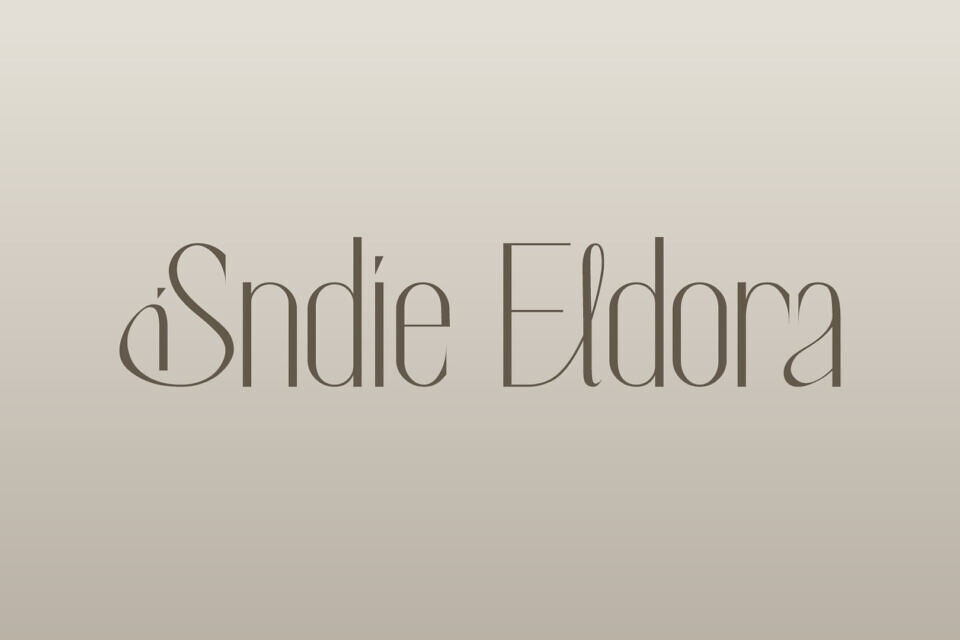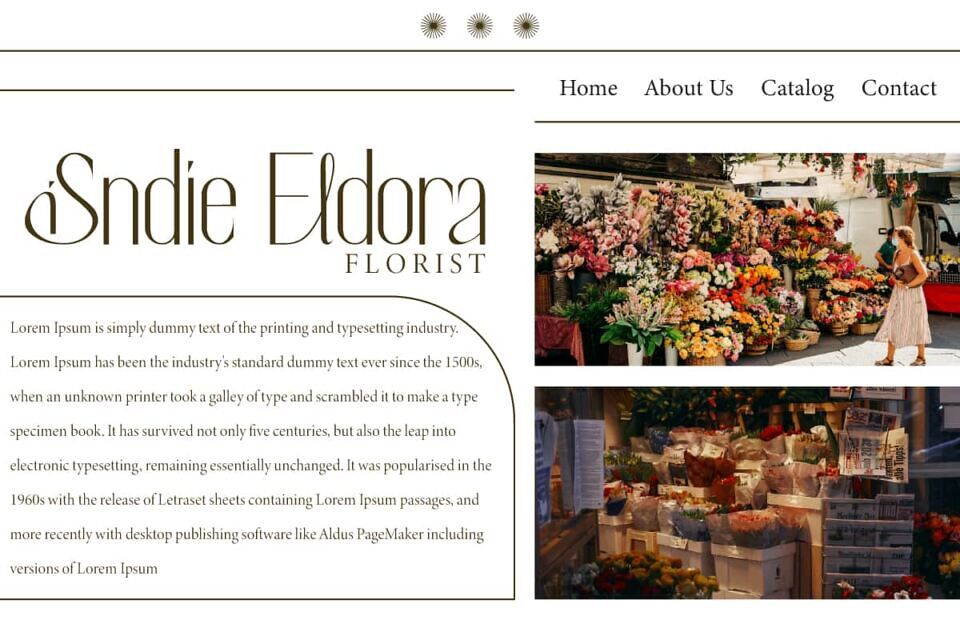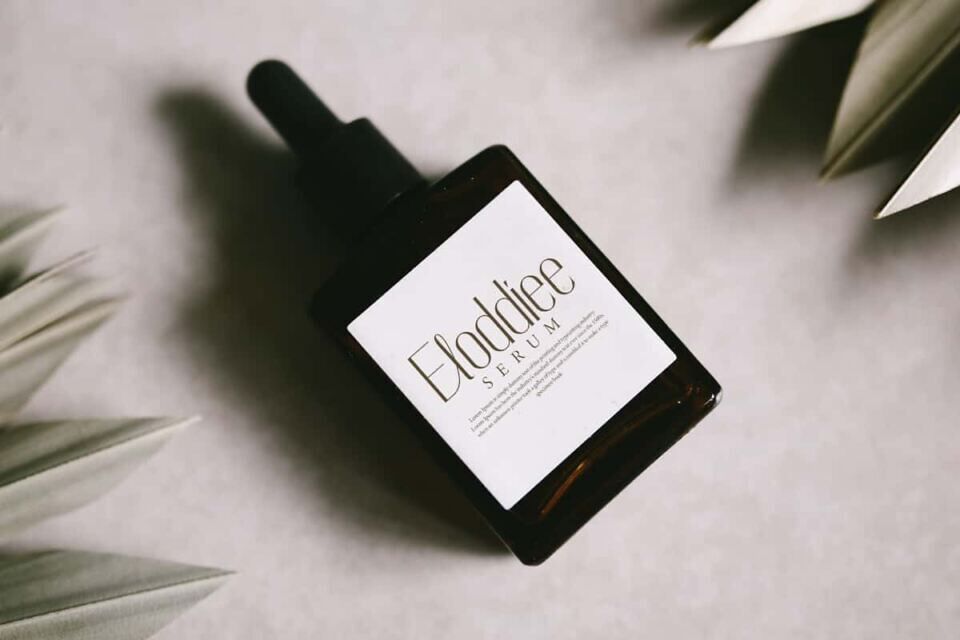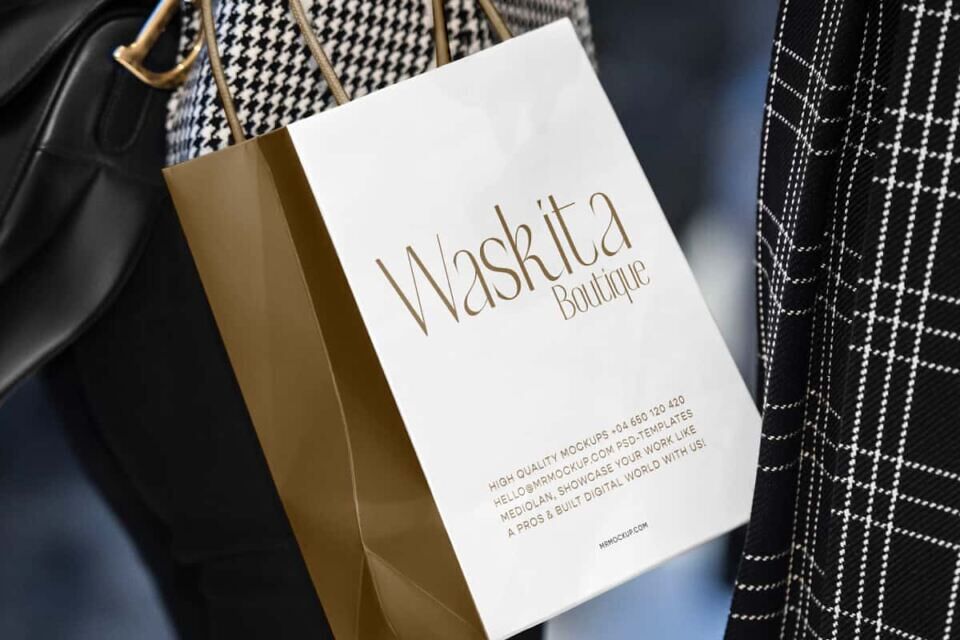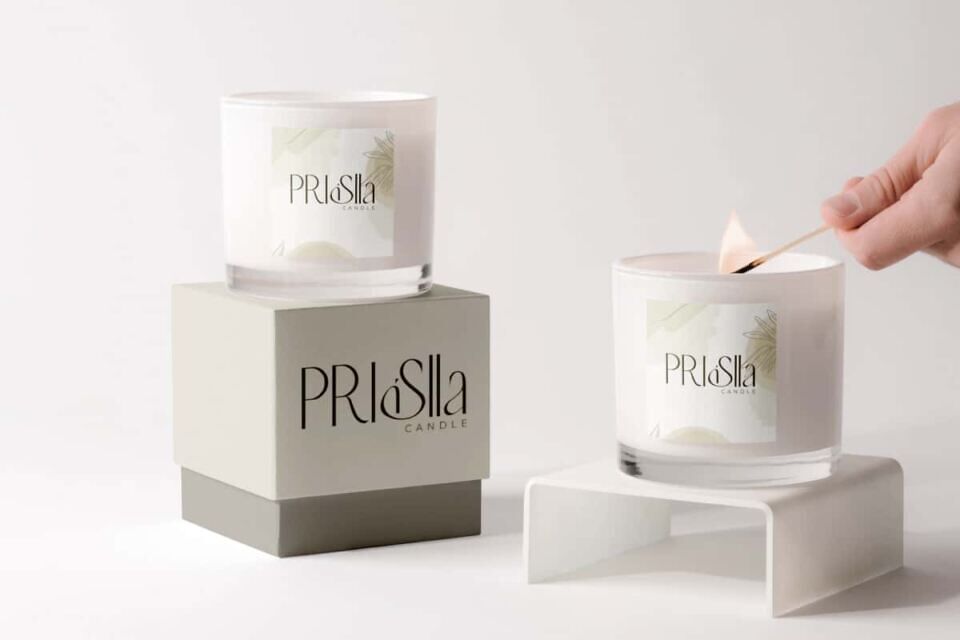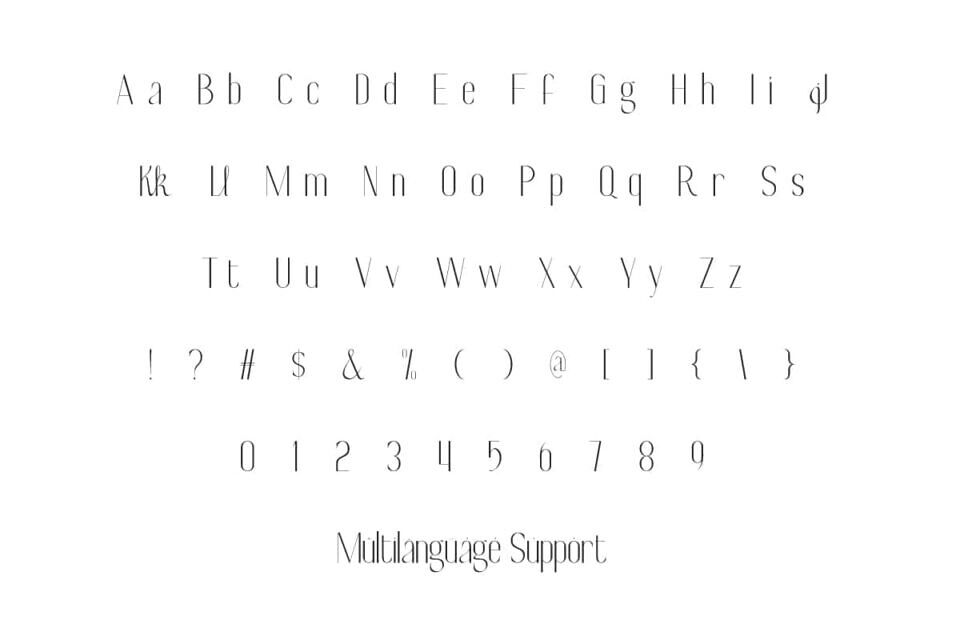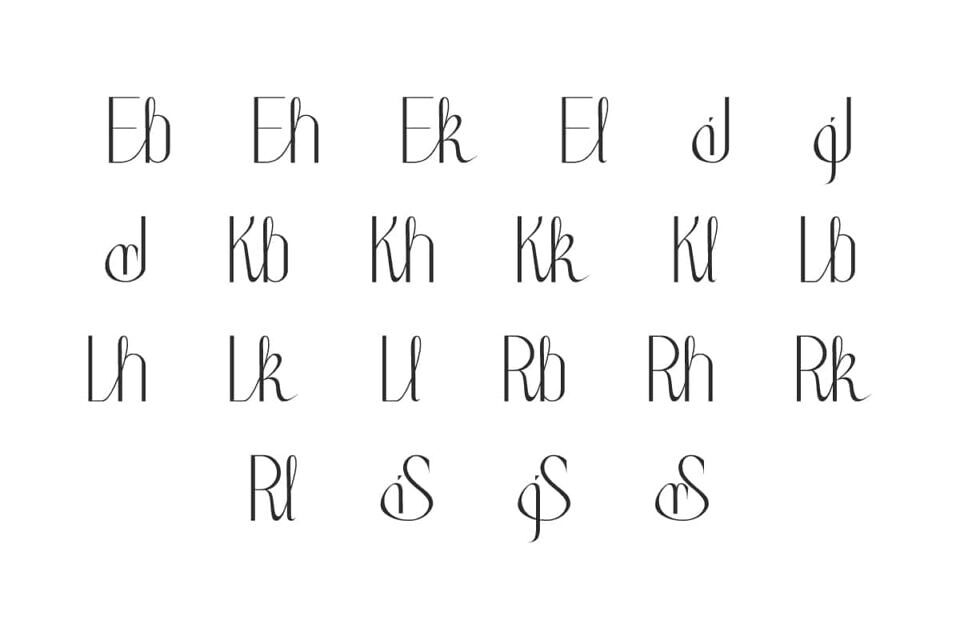
Sindie Eldora Font
Sindie Eldora Font is a modern, sophisticated and elegant display font, perfectly crafted in an artistic touch. It brings a unique visual voice as well as easy readability to use in any case, suitable for greeting cards, invitation, label, logos, mockup, packaging, paper bag, screen printing, stationery, template, website, and so much more!